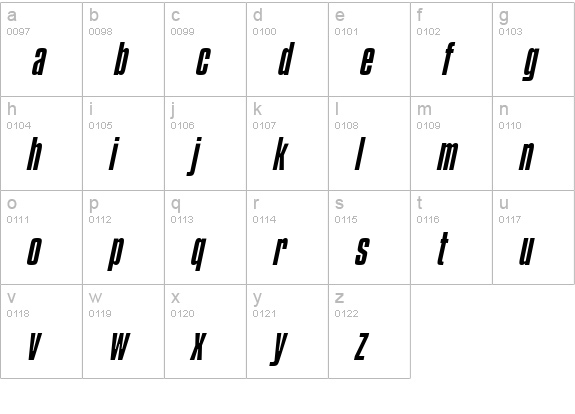
Commador Italic is a distinctive, italic variant in the Commador typeface family \xE2\x80\x94 well suited to design and typography projects.
Commador Italic is a stylish and elegant font that exudes sophistication and charm. Its slanted design adds a touch of flair to any project, making it perfect for invitations, logos, and branding materials. The flowing curves and unique letterforms of Commador Italic make it stand out from the crowd and leave a lasting impression. What's even better is that Commador Italic is available for free download at FontsMarket.com. This means you can easily access this stunning font and use it in your designs without any cost. So why wait? Elevate your projects with the beauty and versatility of Commador Italic today!